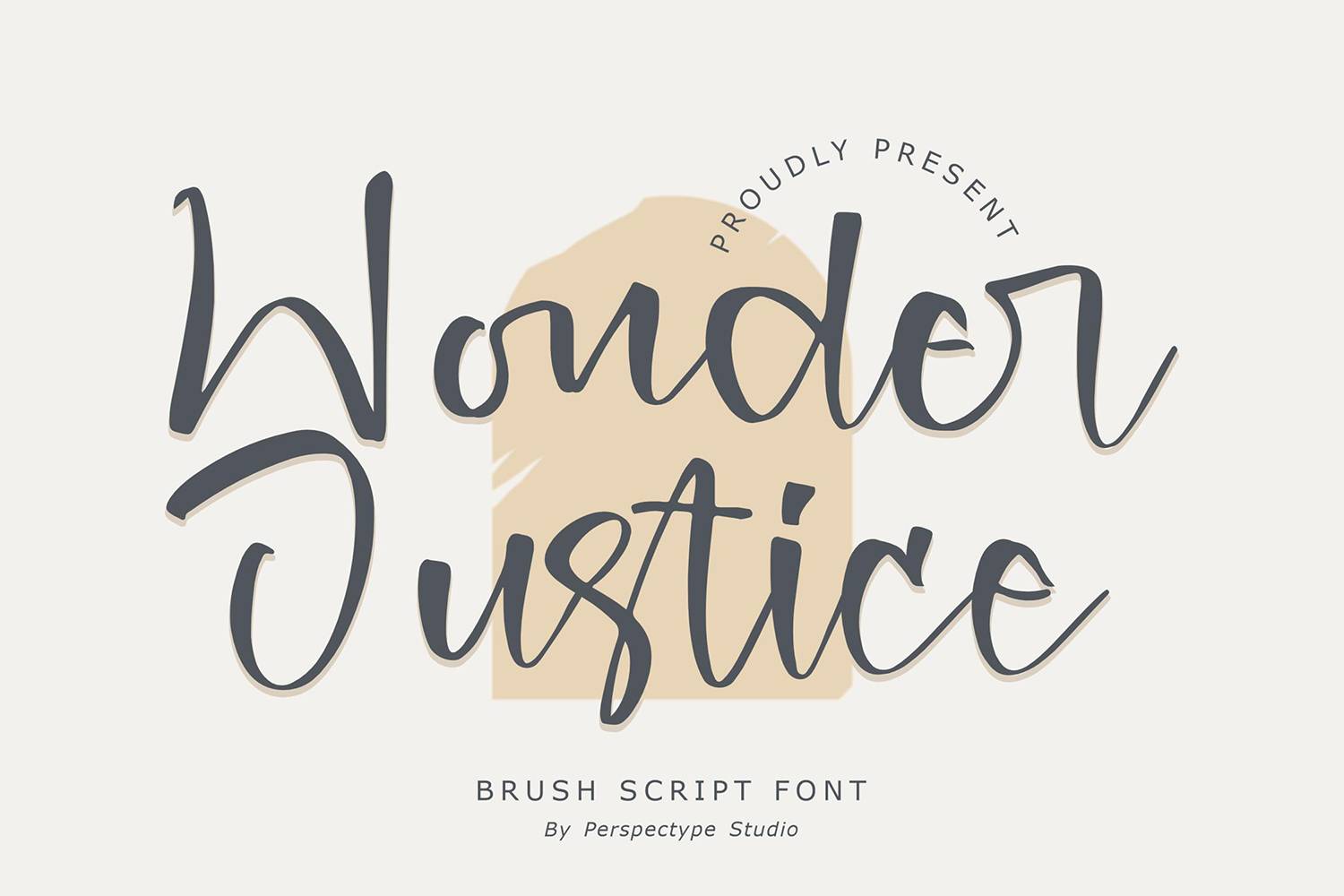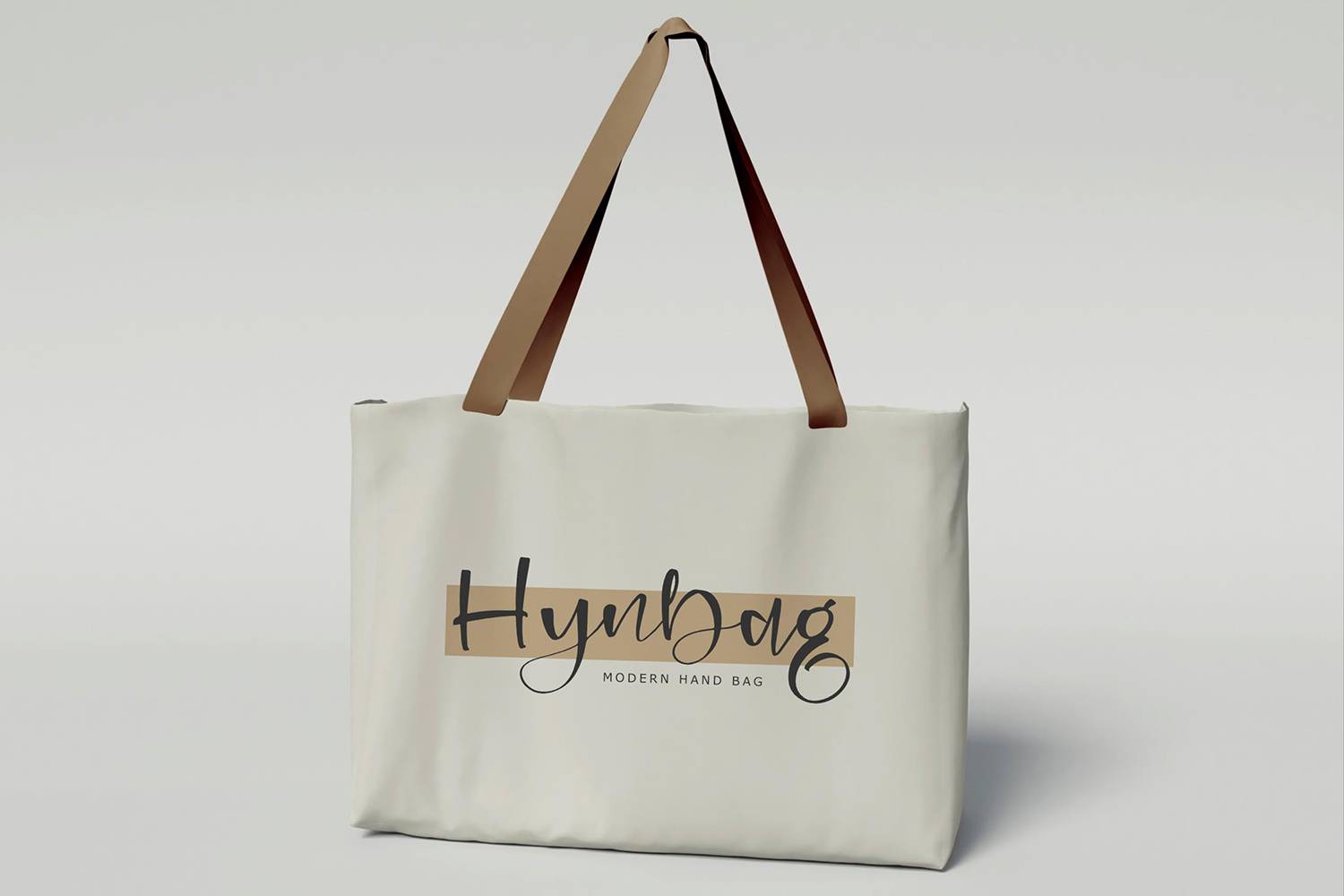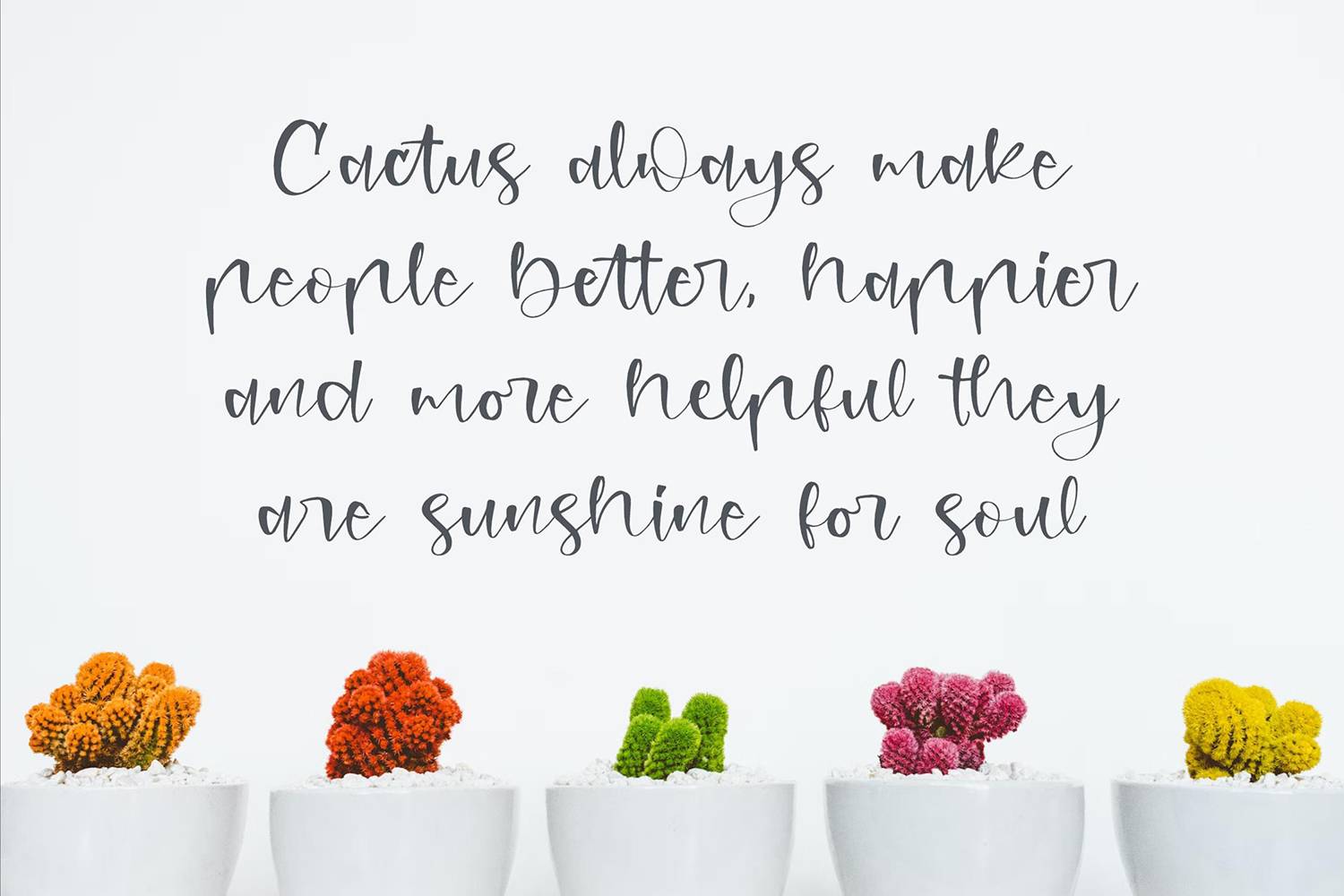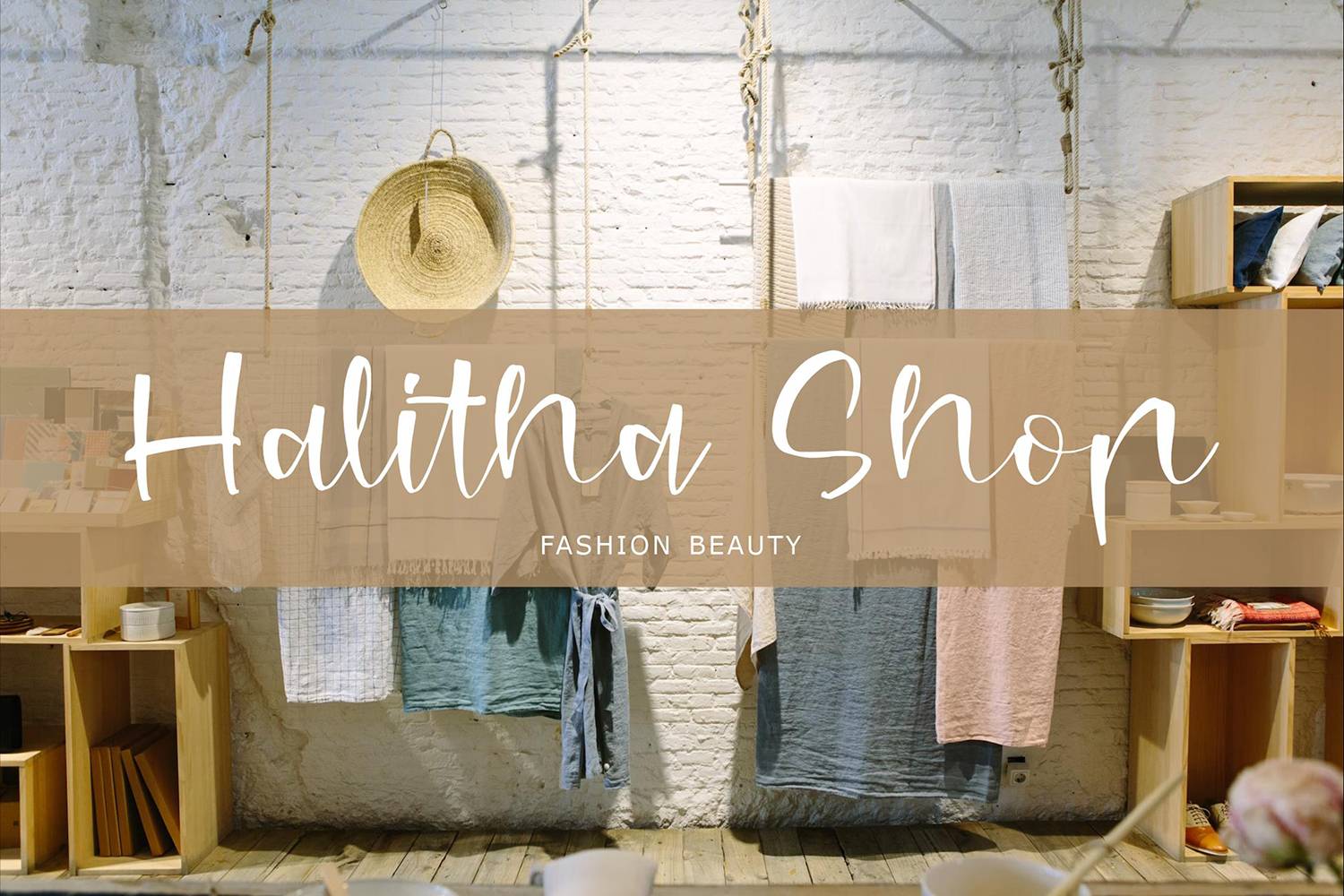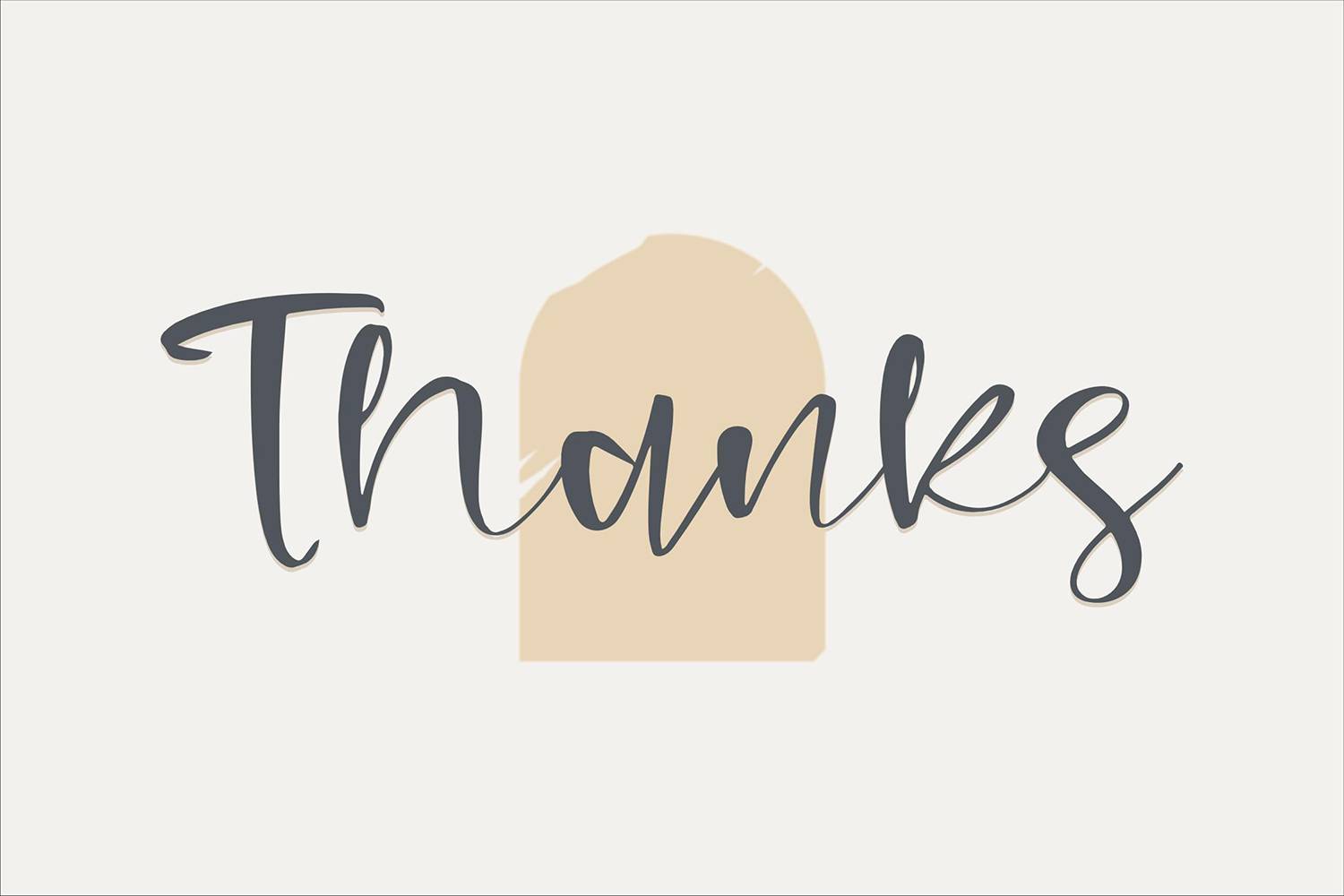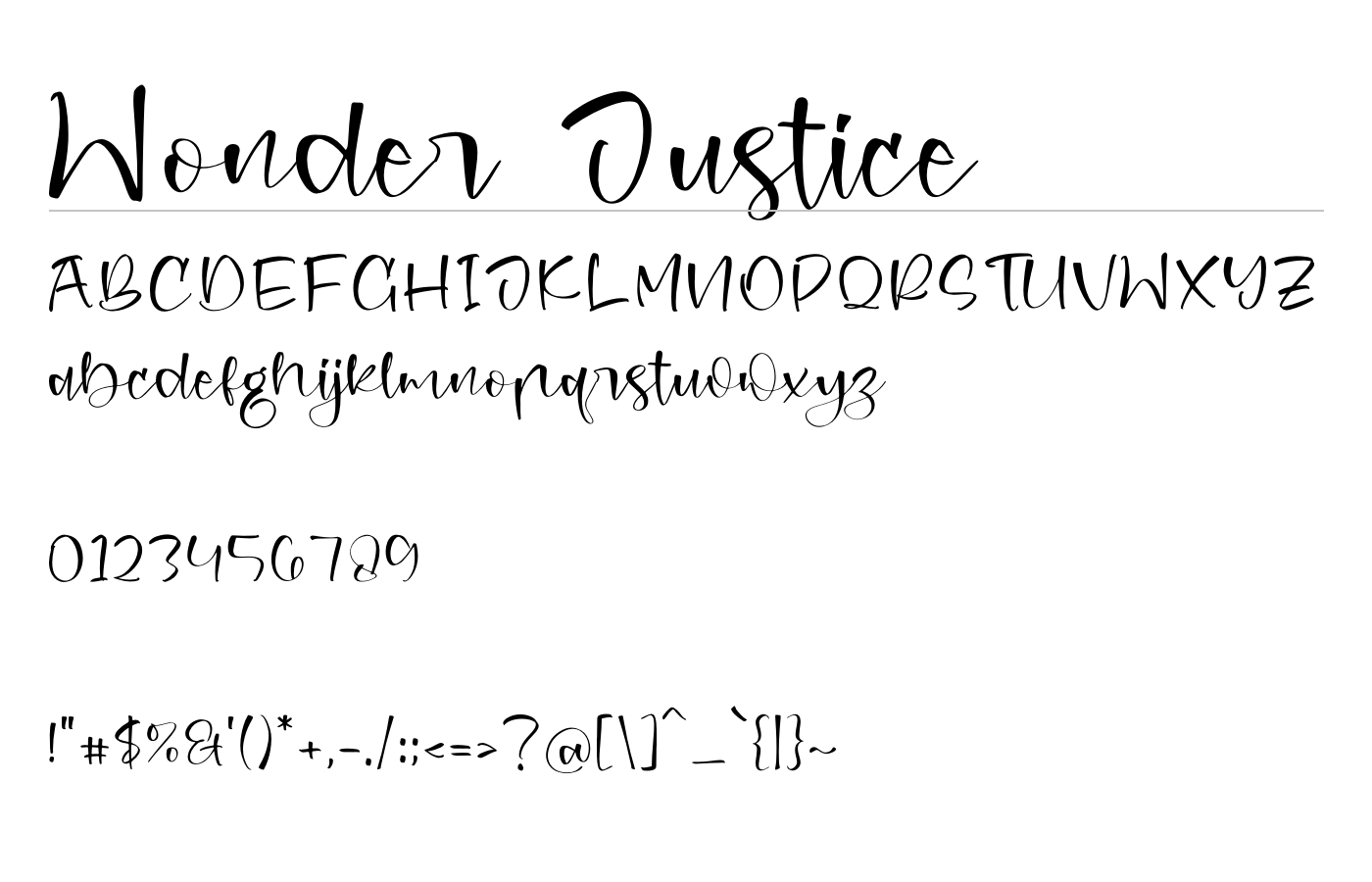
Wonder Justice is a playful and elegant handwritten script font that combines casual charm with a touch of sophistication. Its lively, flowing strokes and varying thickness create a dynamic and friendly feel, making it perfect for invitations, branding, and creative projects that seek a personal yet stylish look. This font works wonderfully in headlines and logos where a warm, approachable personality is desired.
Wonder Justice Font